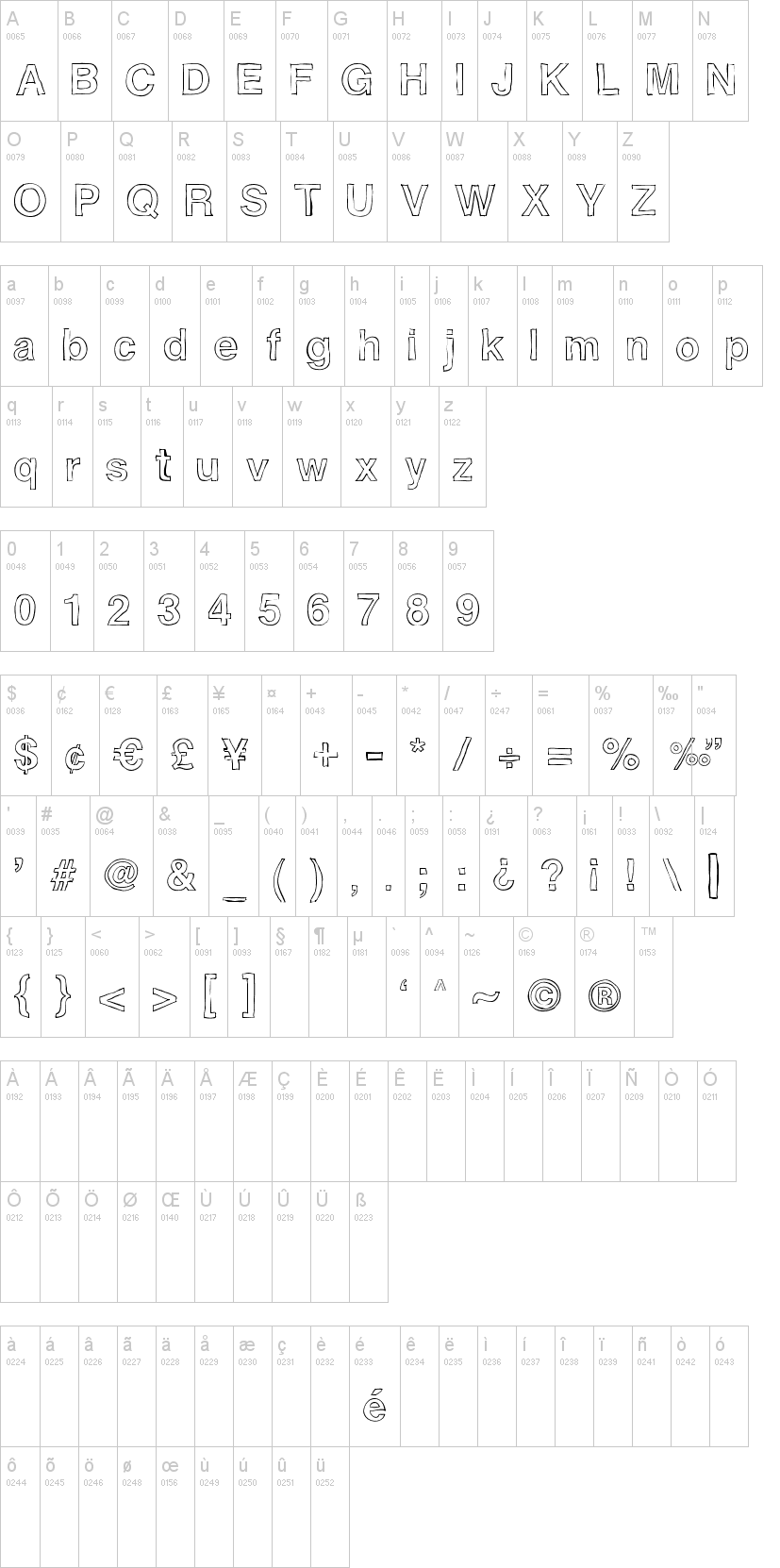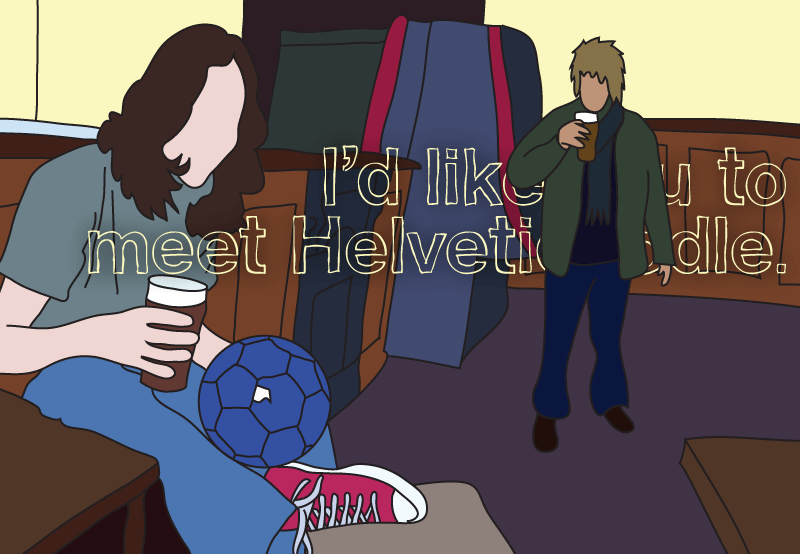
Шрифт Helvetidoodle by Ed T
Hi - I'm Edward Townend, a freelance Graphic Designer in South Yorkshire, UK and Helvetidoodle is a font I made in a spare couple of evenings. I'm pretty sure you can spot the inspiration - though it was freely hand drawn on a graphics tablet. The font includes lower and uppercase, numbers and a fairly comprehensive collection of punctuation/symbols.